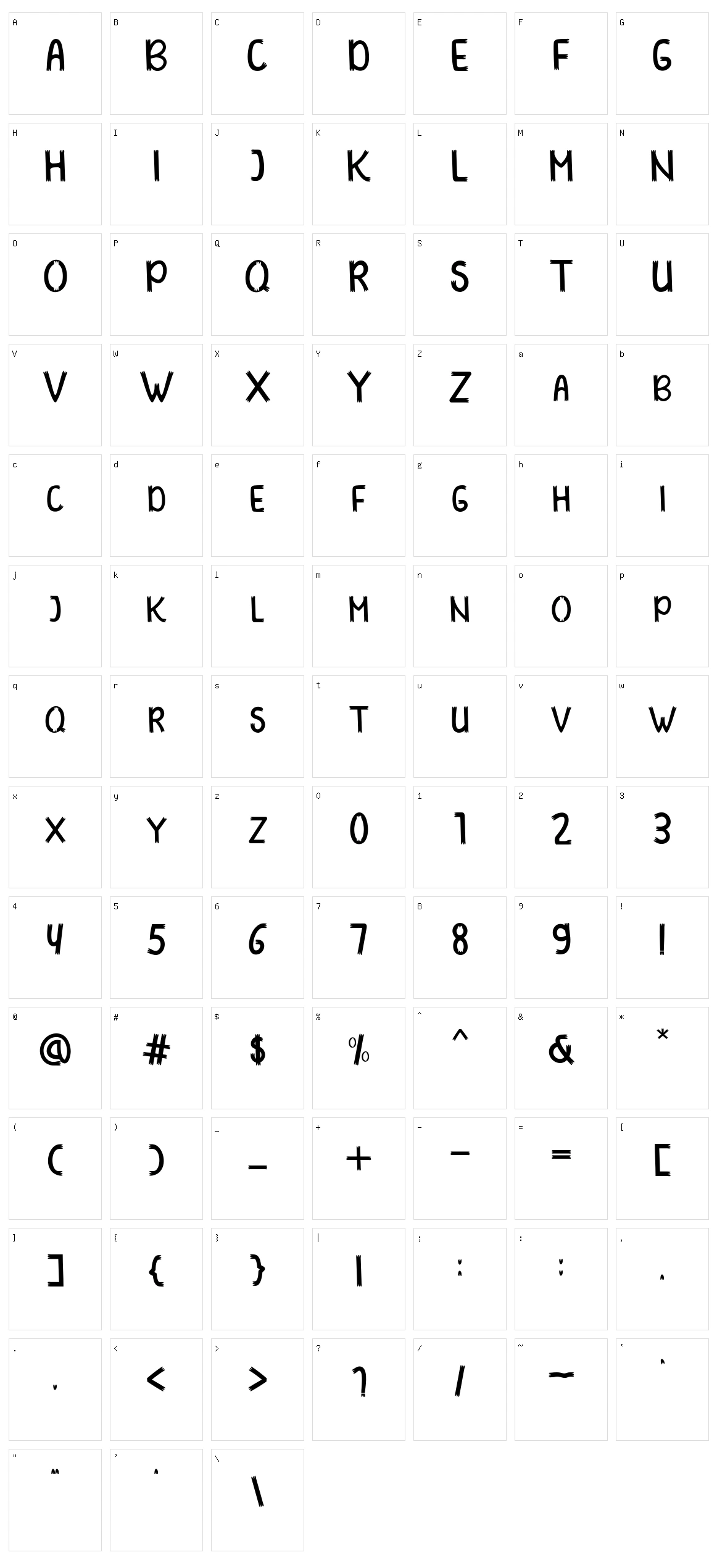
The free font Hello Crocodilo is carefully designed by Alfin Ridhowi, showcasing a thoughtful balance of creativity and usability and falls under the Cartoon font style. When you download the ZIP file, it contains only 43.89 KB of font files, making it lightweight and quick to download. Please review the license details below to understand permitted usage and distribution rights. If license information is not available, we recommend using this font for personal projects only or contacting the author directly for commercial usage permissions.